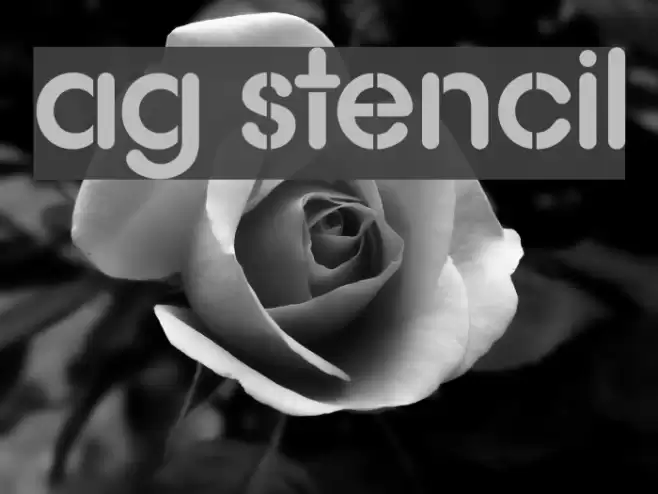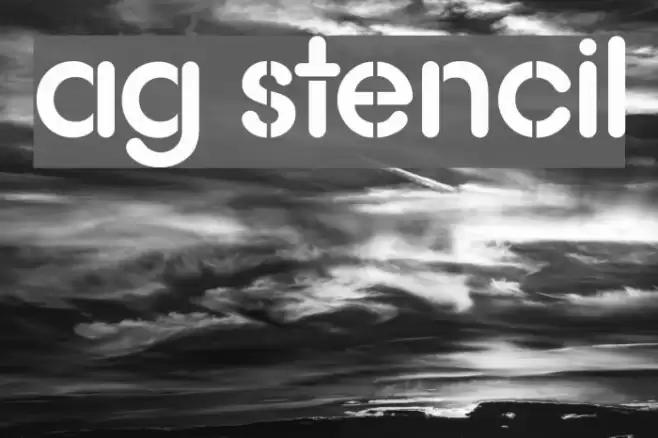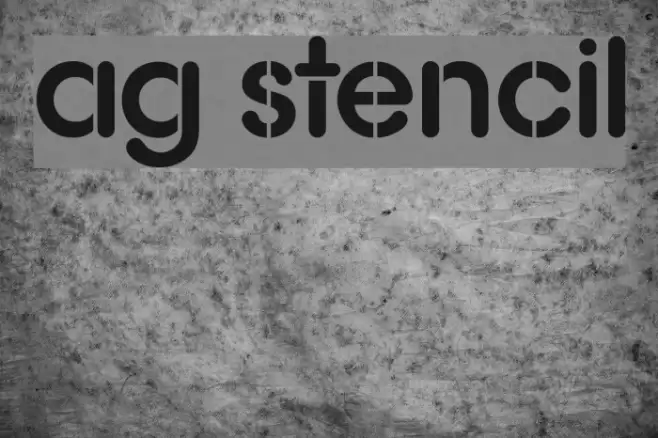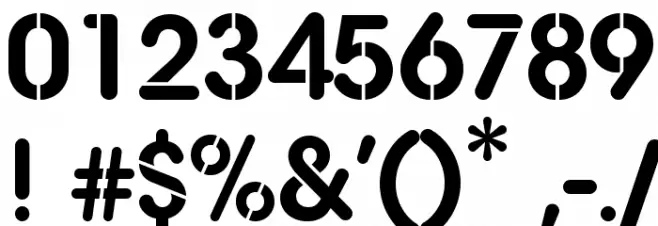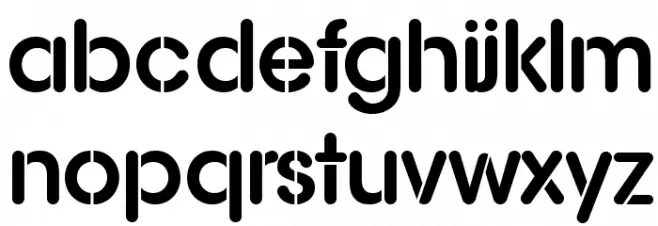
AG Stencil
This font features a bold, geometric design with distinct stencil-like cutouts in each character, creating a modern and industrial feel. The rounded edges and consistent stroke width give it a smooth and approachable appearance, while the stencil gaps add a unique and eye-catching element. The font maintains a uniform weight throughout, ensuring readability and a clean aesthetic. Its design is both functional and decorative, making it suitable for a variety of creative applications.
A bold, geometric stencil font with rounded edges and uniform weight.
- Proposed Projects: Ideal for branding, signage, posters, and packaging design where a modern and industrial look is desired.
- Use Case: Headlines, Logos, Posters